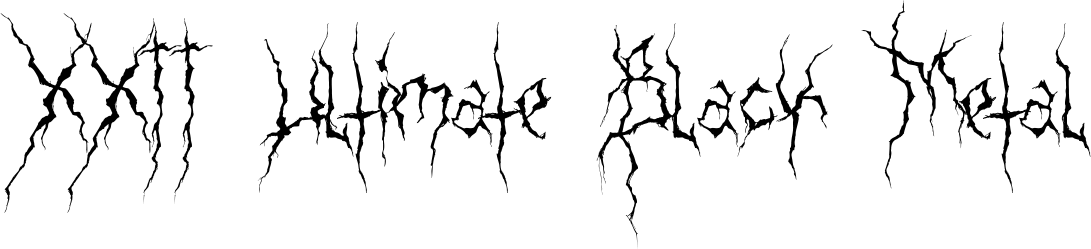
XXII Ultimate Black Metal Font
Designed byDoubletwo Studios
XXII Ultimate Black Metal is a scratched font that can bring a fear and panic feel to your designs! This case appears in shattered and slim characters and can be fixed for movie posters, cards, flyers, etc.